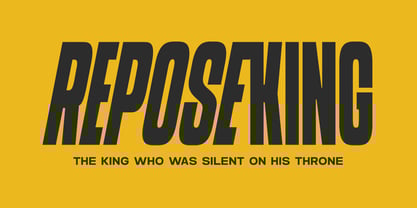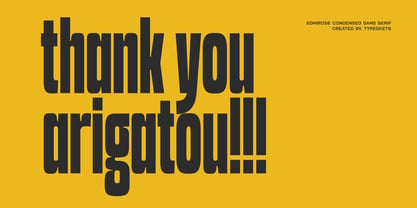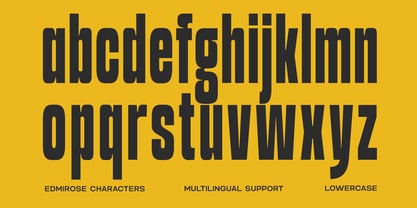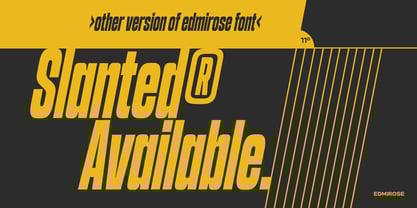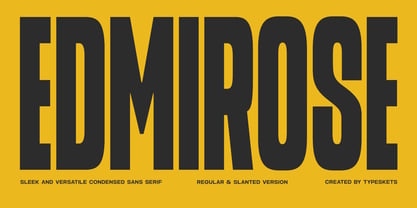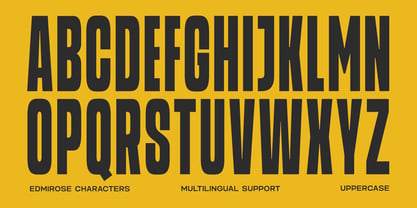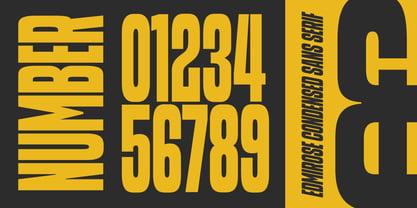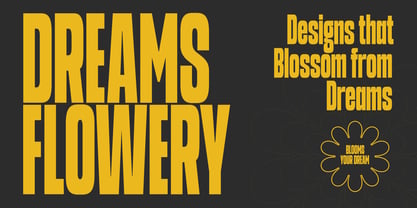
Edmirose
by Typeskets
The Edmirose Font Family was designed by Sahrul Hidayat and published by Typeskets. Edmirose contains 2 styles and family package options. More about this family
Edmirose is a sleek condensed sans serif designed for strong visual impact and exceptional clarity. Its tall vertical structure, tight proportions, and smooth geometric curves give it a modern presence ideal for contemporary branding and editorial design. Built to perform across both digital and print environments, Edmirose offers Regular and Slanted styles, expanding its expressive range for dynamic layouts, energetic headlines, and typographic contrasts. The condensed width makes it suitable for space-efficient compositions, allowing designers to create bold statements even in tight layouts. With clean cuts, refined terminals, and a confident rhythm, Edmirose is perfect for projects that require a blend of modern minimalism and strong typographic character. It fits seamlessly across a wide variety of applications—from magazines to packaging, posters to sports graphics, advertising to digital interfaces. Edmirose is crafted to be both versatile and reliable, providing a smooth and polished foundation for any professional design project. Designed with precision for designers who value height, impact, and contemporary structure.